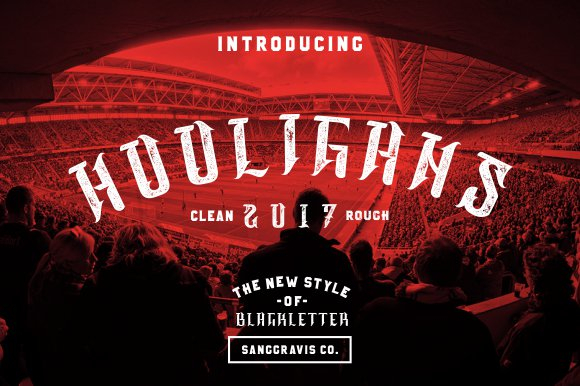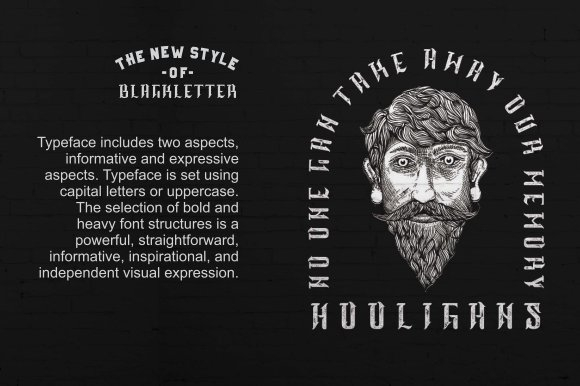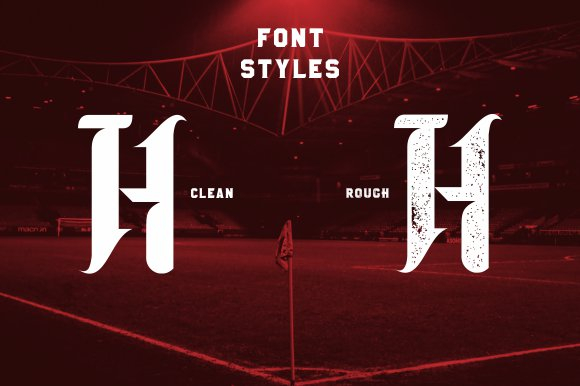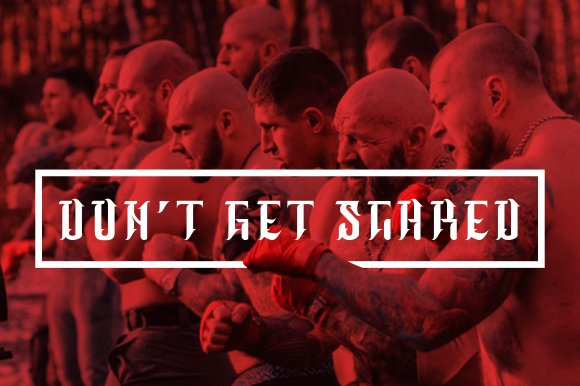
About Hooligans Font
The Hooligans is a striking blackletter font. It comes in two weights which includes informative and expressive aspects.
Its bold and heavy style is perfect for a powerful, straightforward, inspirational, and independent visual expression.